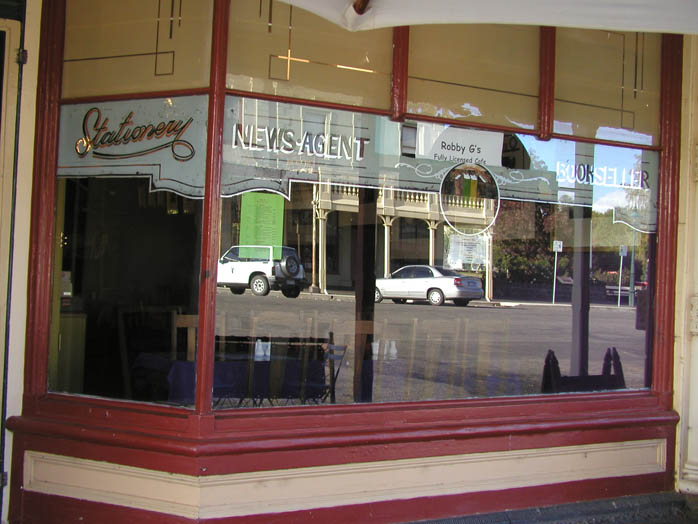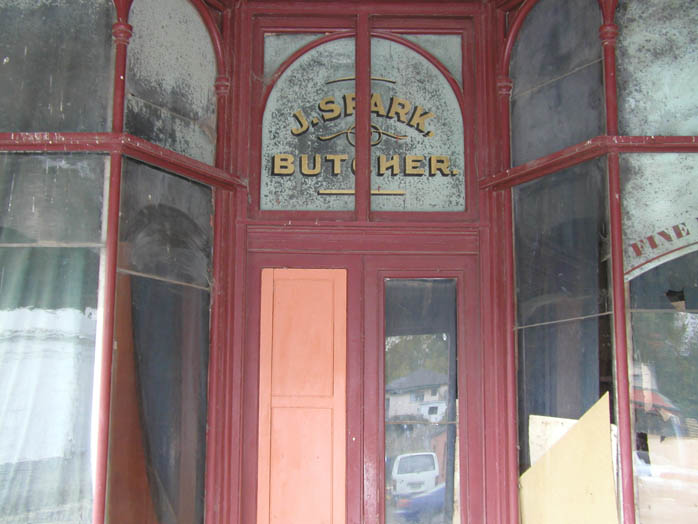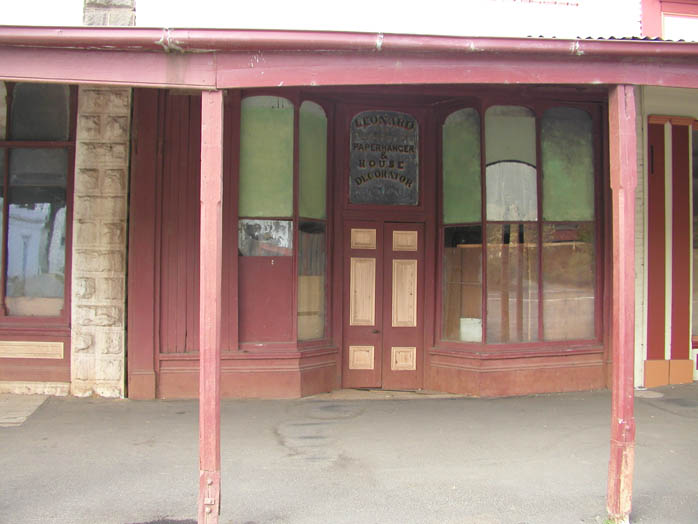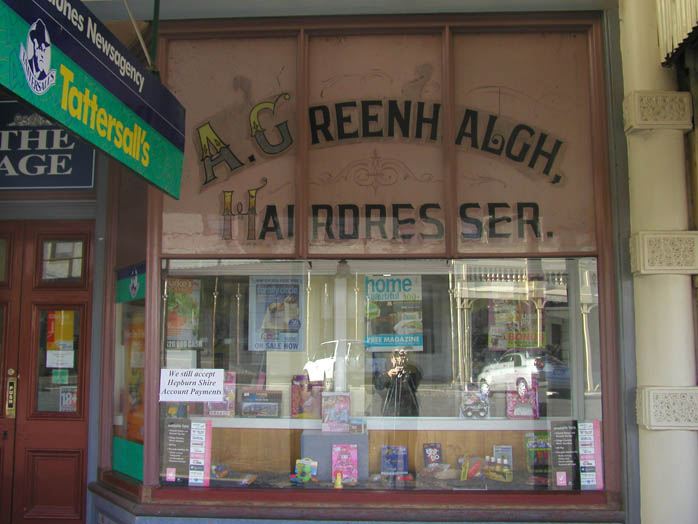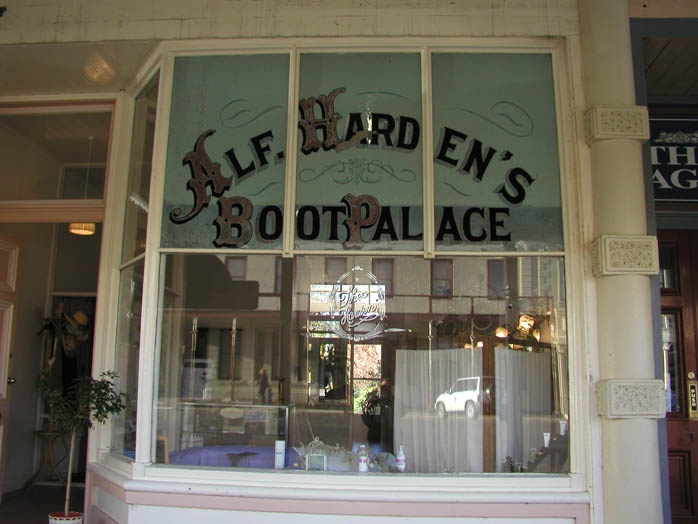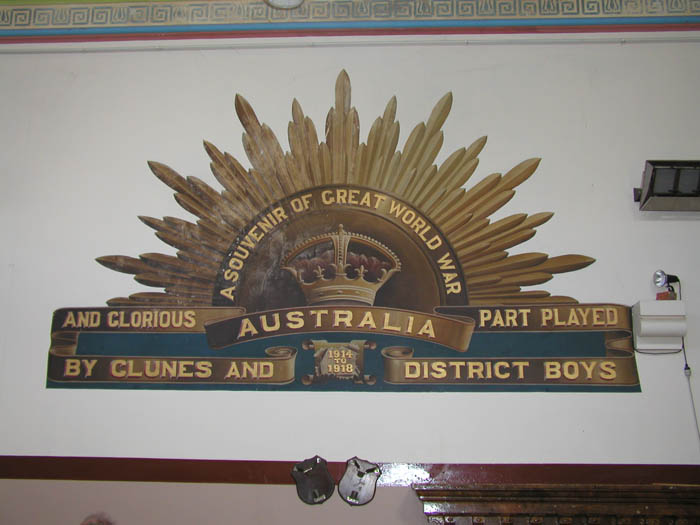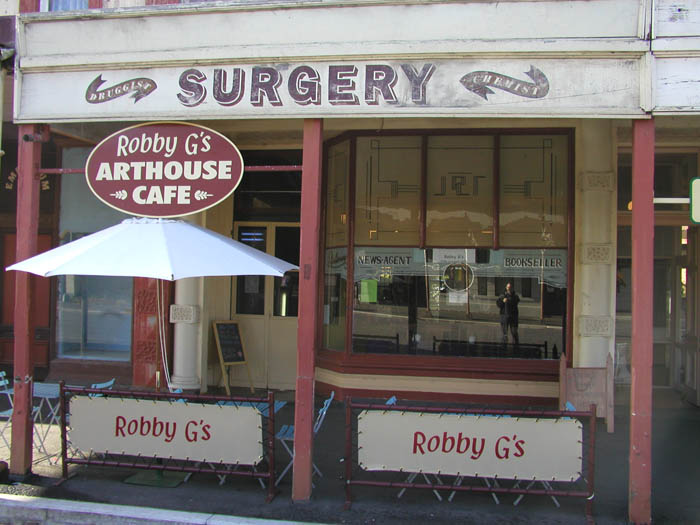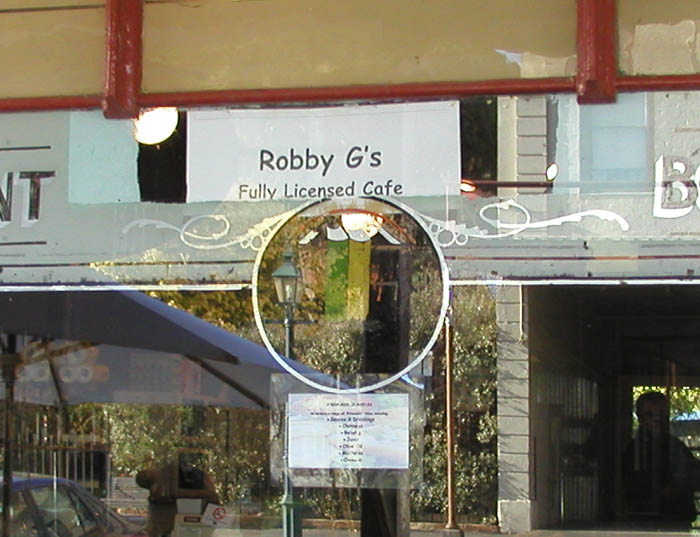
I thought it was time to take you back into sign history again.
Here's a small selection from Clunes, a Victorian country town with a gold mining past, some really nice old signs and unrestored shopfronts.
Nice share Bruce.
I always enjoy the historic signs. I am curious about the circle in the bottom photo.
Good post Bruce. I am also curious about that circle.
Nice art deco design on that one. I love the way Stationery is written, even though it's a little rough in the quality of execution when you look closely.
The circle has a small painting of some books. Unfortunately I don't have a close-up but this is a crop from another photo more directly in front. It seems Robby G decided to leave the original window sign, simply putting a piece of paper in a rectangular gap in the sign. Possibly that gap was already there from a previous business change. I love the fact that this shop has three different identities.
A good number of signs in this town have used aluminium paste, including this one for stationery/newsagent. Obviously the local signwriter liked it a lot.
I have quite a few other photos of worthy window signs in this same town, but decided to add this one from inside the town hall, nearly 90 odd years old and still looking good. All the lettering is gold leaf.
I would have assumed a picture or perhaps a registry for the circle.
Interesting amount of asphaltum, more common in rural areas here in the US.